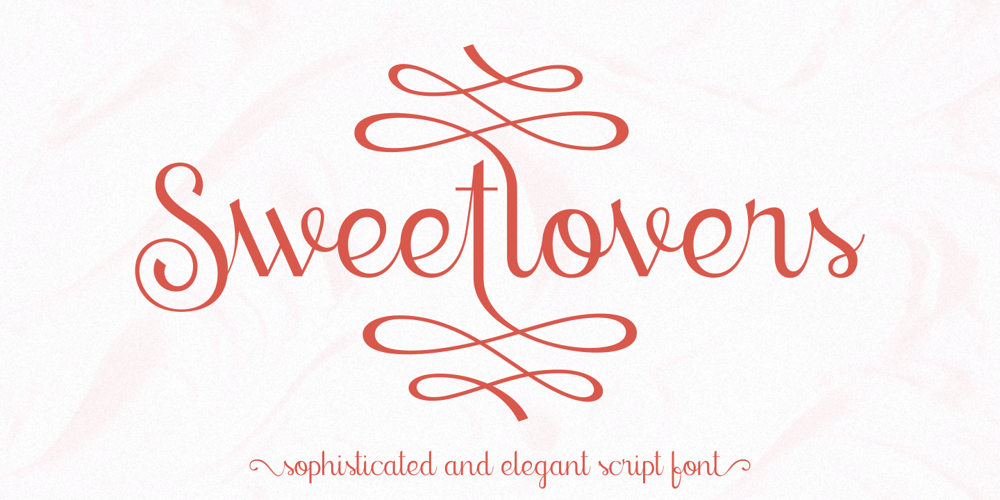
Sweetlovers Font Family was designed by Alfin Weniardi and published by Lone Army. Sweetlovers contains 1 styles and family package options. Sweetlovers Script, a perfectly modern script, creative and casual, together or apart, to make tons of gorgeous typographic designs, just in time for all your Christmas labels, cards, and branding too.Perfect for DIY projects, greeting cards, labels, quotes, posters, invitations, wall art, branding, packaging, websites, photo & photography overlays, signs, window art, tags and so much more.The script has an alternate Capital and Lowercase, beginning and ending set, and swashes that are suitable for your designs project.Thank you and please enjoy!